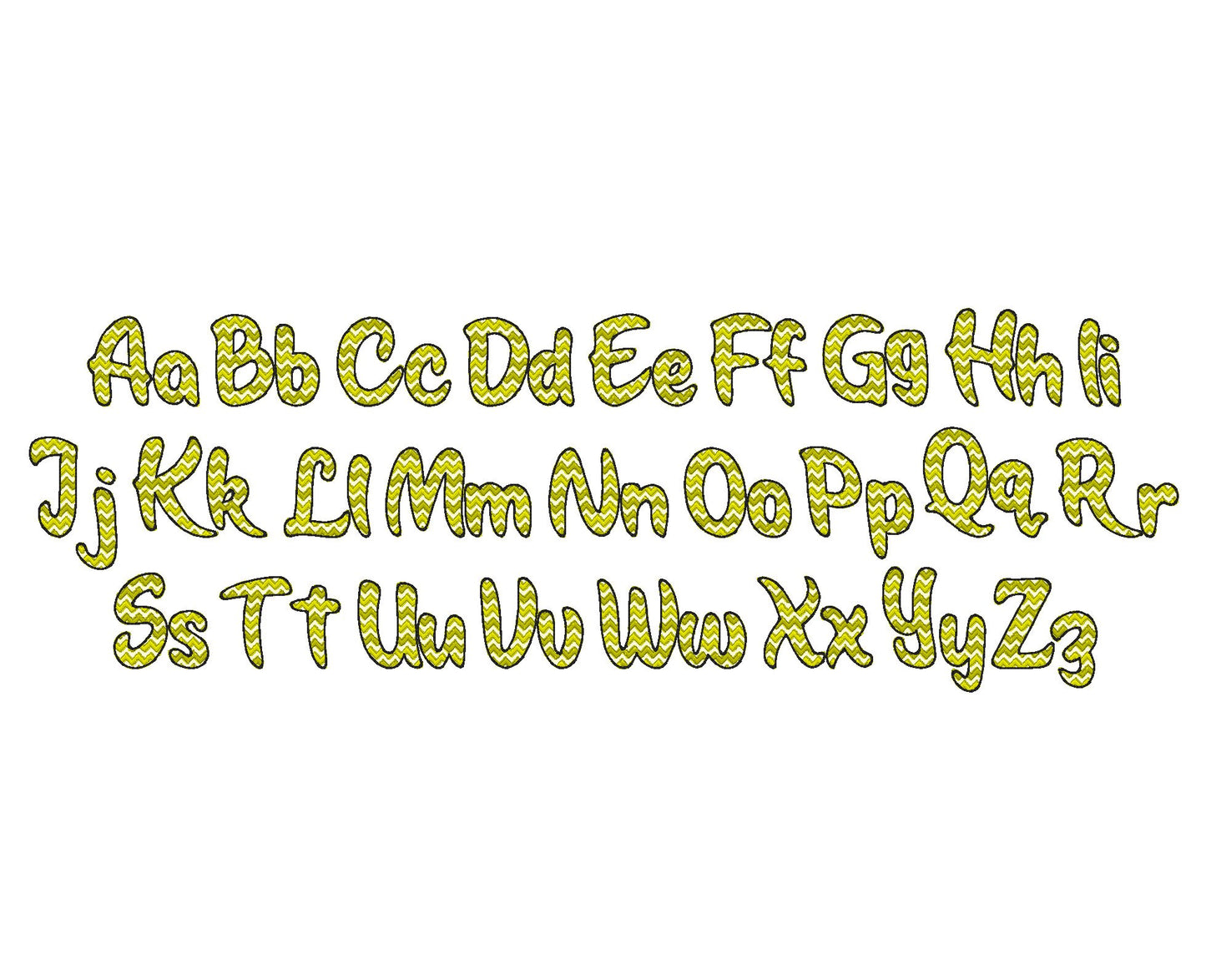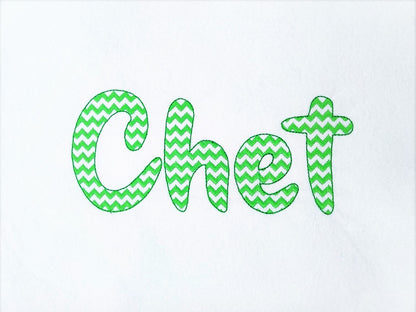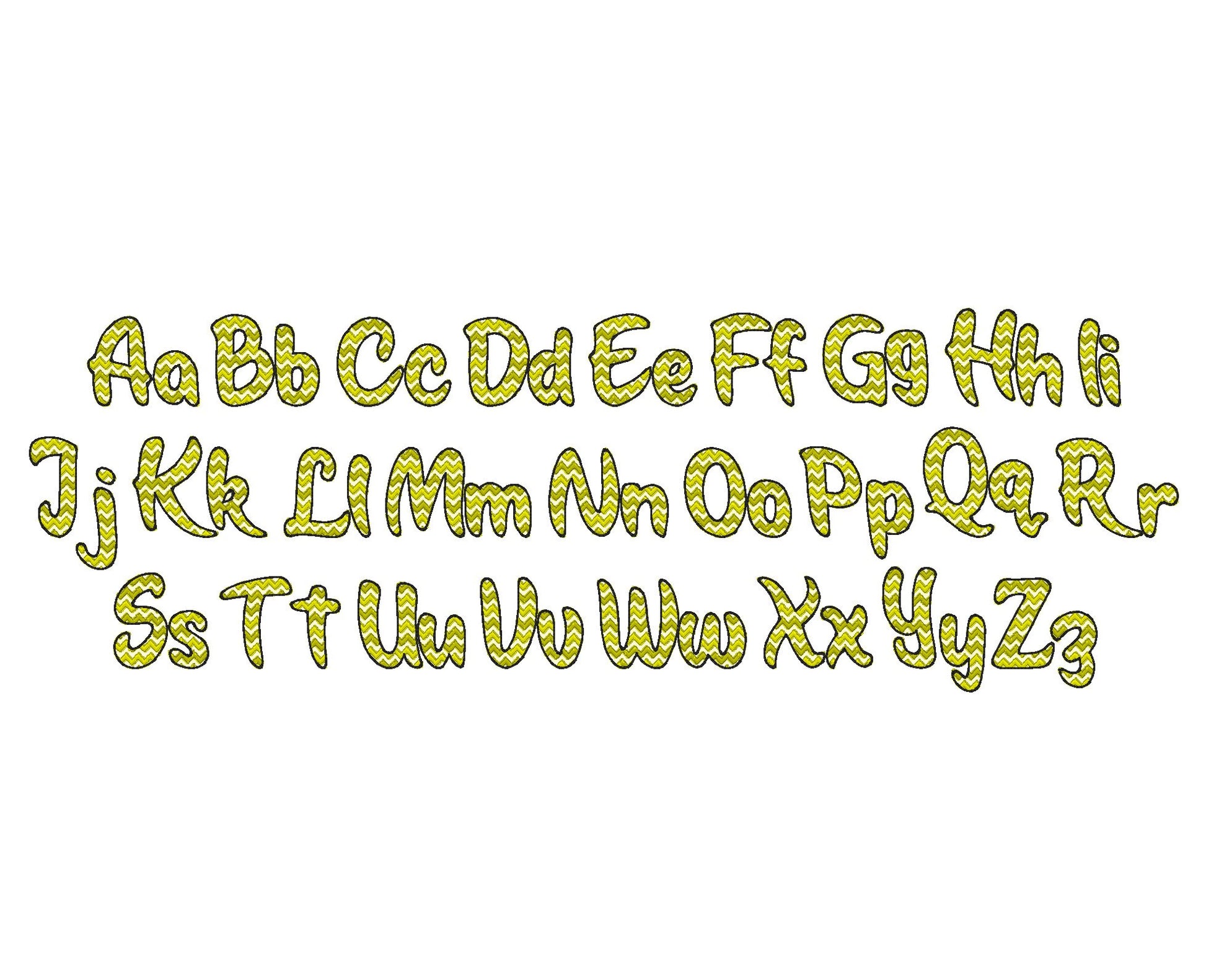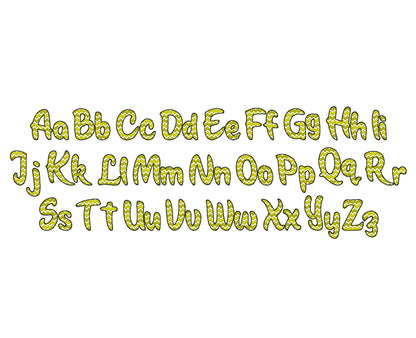
Chevron Ric Rac Font Light Sketch Outline
Uppercase and lowercase letters in six sizes: 1.6, 2, 2.4, 3, 3.4 and 3.8 inches. The chevron lines are part of the embroidery and the fabric shows through.
- Chevron ricrac sketch font
- Uppercase and lowercase letters
- 6 sizes, 1.6 to 3.8 in